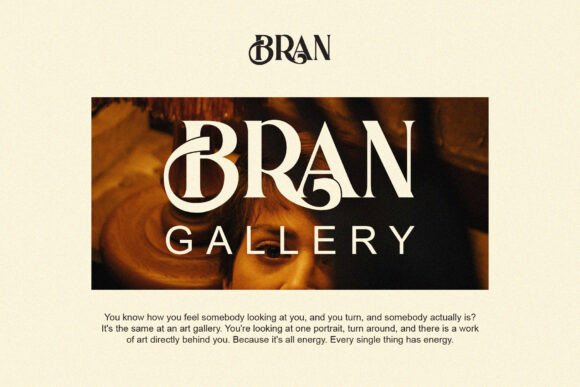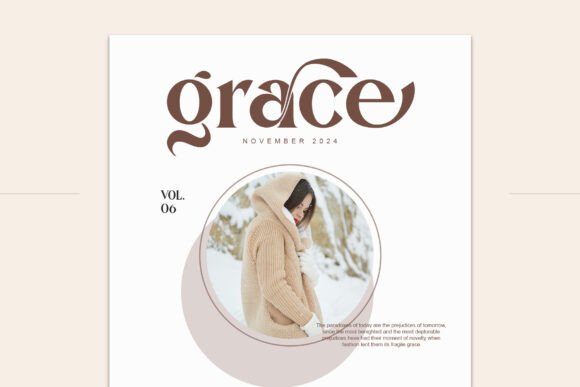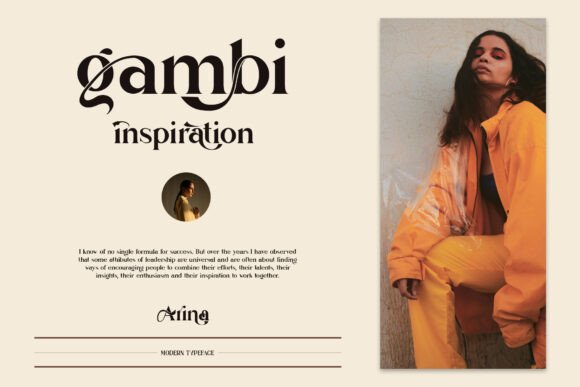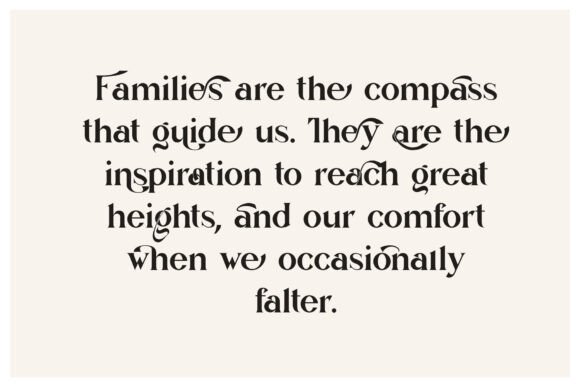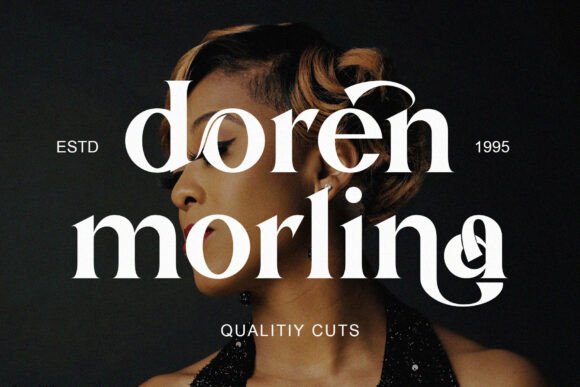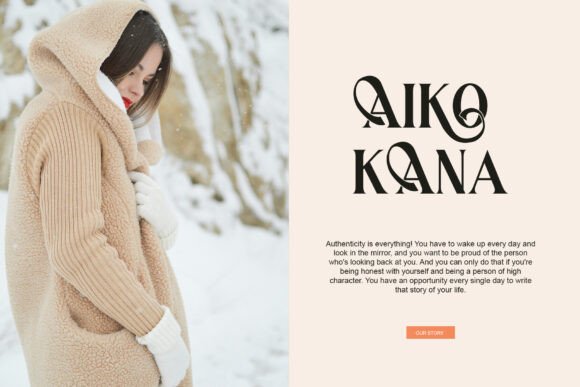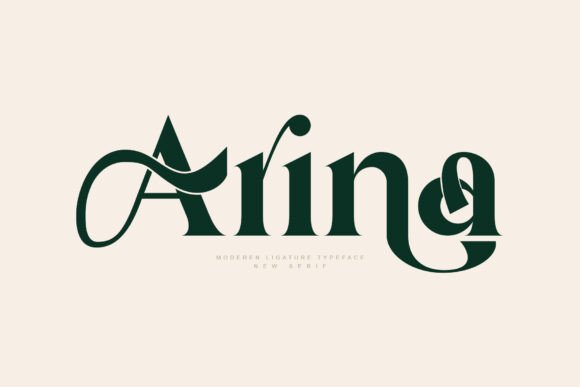
Introducing Arina Font: Elevate Your Designs with Elegance and Class
In the world of typography, finding the perfect font that embodies both modernity and nostalgia can be a daunting task. However, look no further than Arina Font, a sophisticated and elegant serif typeface designed to transform your designs. Whether you’re crafting a logo, laying out a magazine, or curating content for social media, Arina Font is the perfect companion to bring a touch of class, style, and chic to your projects.
The Essence of Arina Font
Arina Font stands out with its unique blend of modern and classic elements. This beautifully crafted serif typeface is not just a font; it’s an experience. Its elegant lines and refined structure make it an ideal choice for designers who aim to infuse their work with a sense of sophistication and luxury. The nostalgia it evokes, combined with its modern appeal, ensures that your designs are both timeless and contemporary.
One of the key advantages of Arina Font is its versatility. It is meticulously designed to work great across various platforms and design applications. Here are a few ways you can leverage Arina Font in your designs:
- Logos: Create a lasting impression with a logo that exudes elegance and professionalism. Arina Font’s distinctive serif style ensures that your brand stands out.
- Magazines: Elevate your magazine layouts with a font that is both readable and stylish. Arina Font is perfect for headings, subheadings, and even body text, providing a cohesive and sophisticated look.
- Social Media: Make your social media posts and stories stand out with Arina Font. Its modern yet classic appeal ensures that your content is engaging and visually appealing.
Why Choose Arina Font?
Arina Font is more than just a typeface; it’s a design solution for those who seek to add a layer of elegance, stylishness, and modernity to their work. Here are a few reasons why Arina Font should be your go-to choice:
- Ready to Use: Arina Font comes matched up and ready to be used together for your next design project, saving you time and effort.
- Elegant and Classy: Its sophisticated design ensures that your work looks premium and high-end.
- Modern and Nostalgic: Arina Font strikes the perfect balance between modern appeal and classic charm, making it versatile for various design needs.
- Perfect for Designers and Crafters: Whether you’re a professional designer or a crafter, Arina Font provides the tools you need to create stunning and impactful designs.
Tips for Using Arina Font Effectively
To get the most out of Arina Font, consider the following tips:
- Mix and Match: Experiment with different weights and styles of Arina Font to create visual hierarchy and add depth to your designs.
- Pair it Wisely: While Arina Font is beautiful on its own, pairing it with complementary fonts can enhance its appeal. Look for fonts that share similar elegance and simplicity.
- Play with Colors: The right color scheme can elevate Arina Font’s elegance. Experiment with subtle color palettes that enhance its sophisticated appeal.
Arina Font is a game-changer for designers and crafters looking to infuse their work with elegance, class, and modernity. Its versatile design, combined with its nostalgic appeal, makes it a valuable addition to any design project. Whether you’re creating a logo, designing a magazine, or crafting engaging social media content, Arina Font is your partner in creating visually stunning and impactful designs. Embrace the elegance of Arina Font and elevate your designs to new heights.